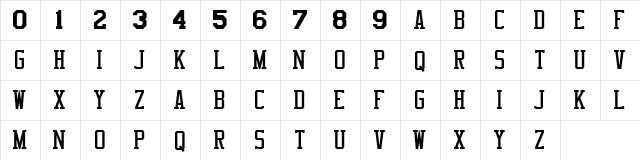
NBA Knicks Regular
Design Context for NBA Knicks Typeface
NBA Knicks offers clean, dependable letterforms without strong stylistic allegiance, making it a practical choice for designers who need flexibility.
Pro Tip: Pair NBA Knicks with a font of contrasting weight or personality to build a more expressive typographic hierarchy.